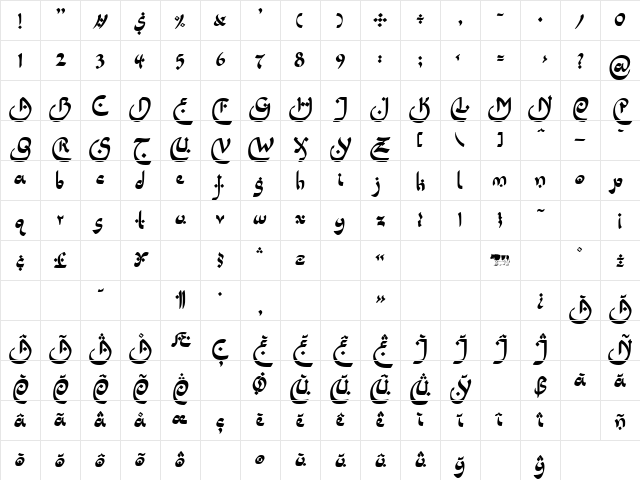
Complete LTPideNashi One One glyph index. Displaying only characters natively supported by LTPideNashi One One font.
LTPideNashi One is a composed and adaptable typeface that performs quietly and consistently across a wide range of design contexts.